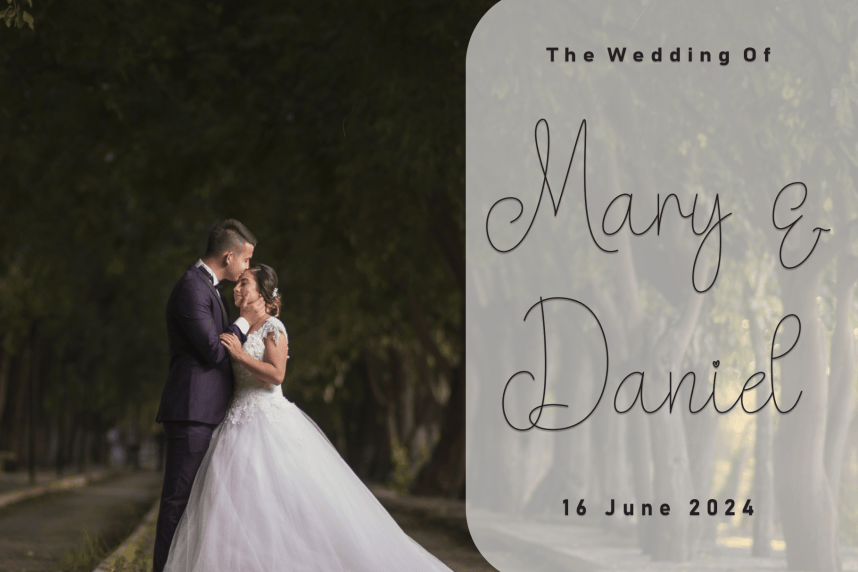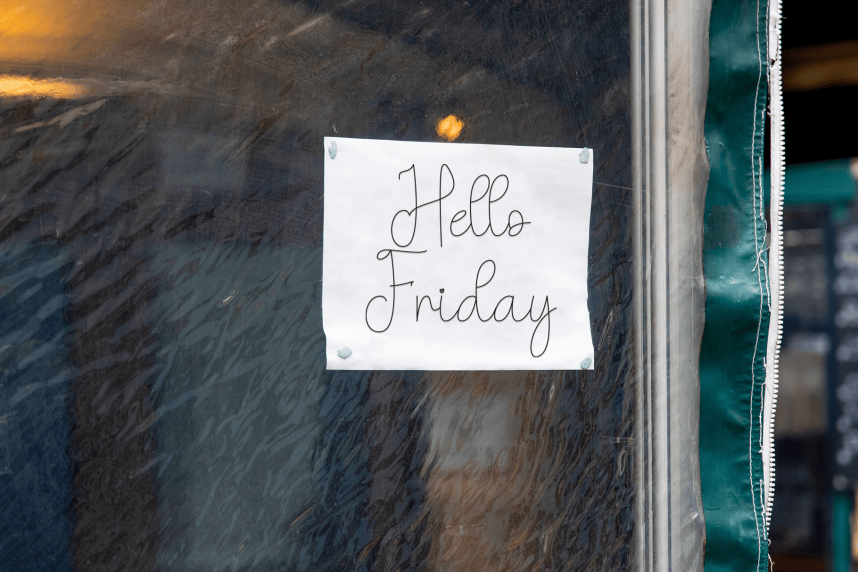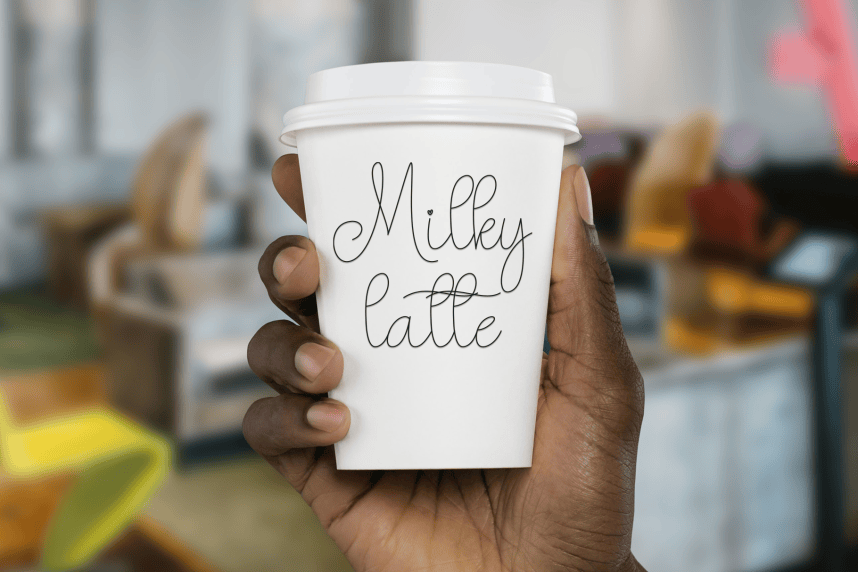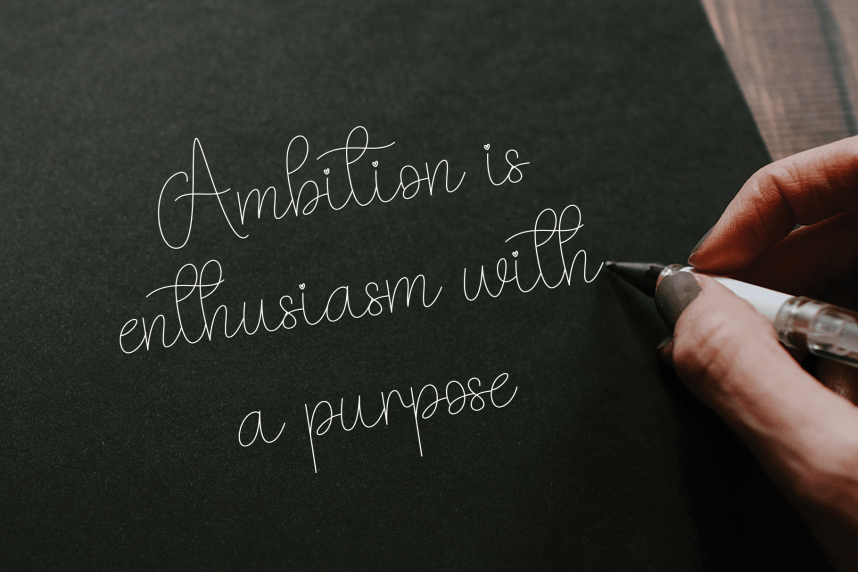
Monlight – Handwritten Script Font
Monlight – Handwritten Script Font is a sweet and friendly handwritten display font. Cute and fun, this font is ideal for writing wedding invitations, cards, or any other design that might need a playful touch!